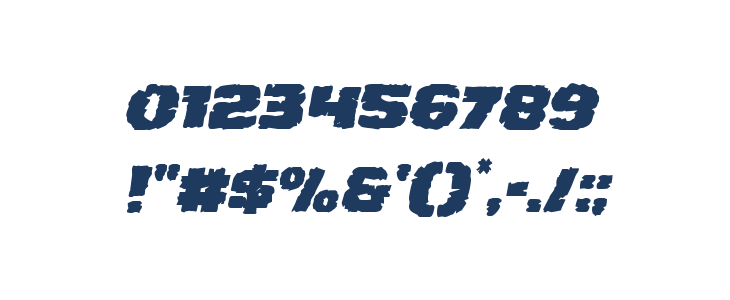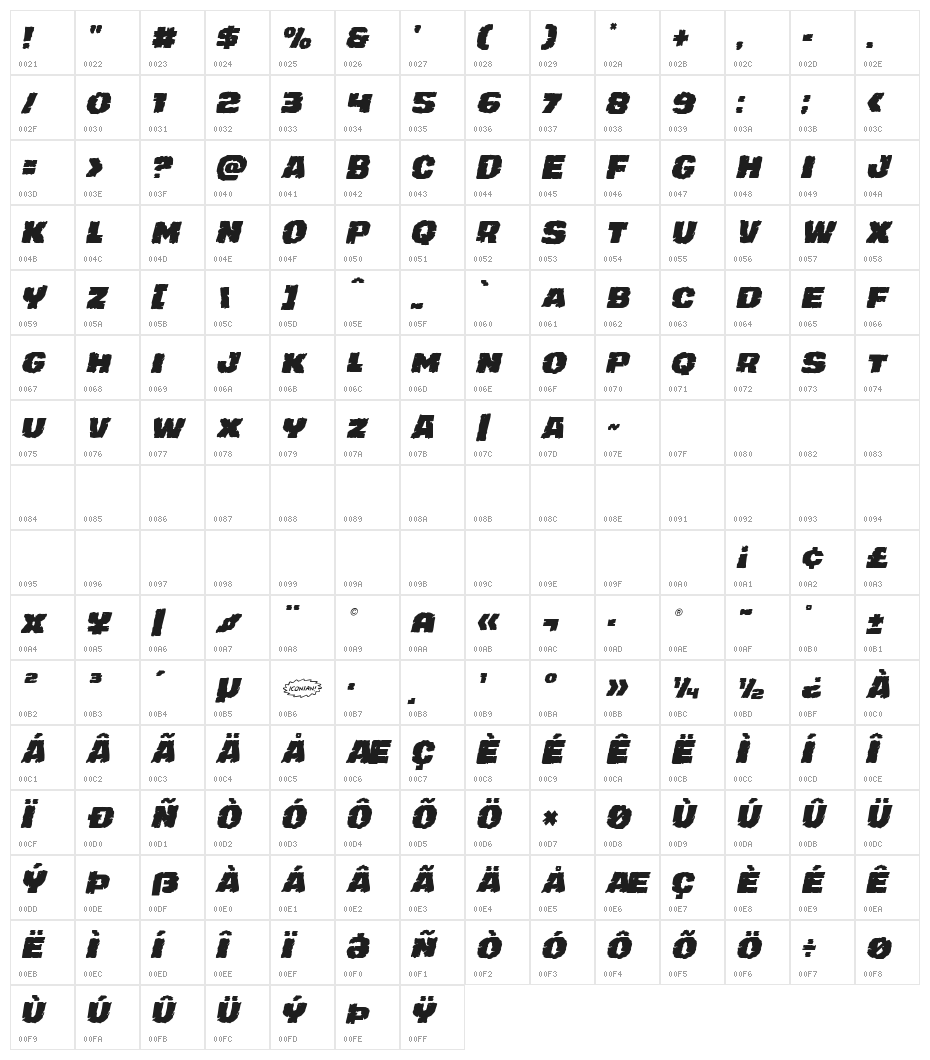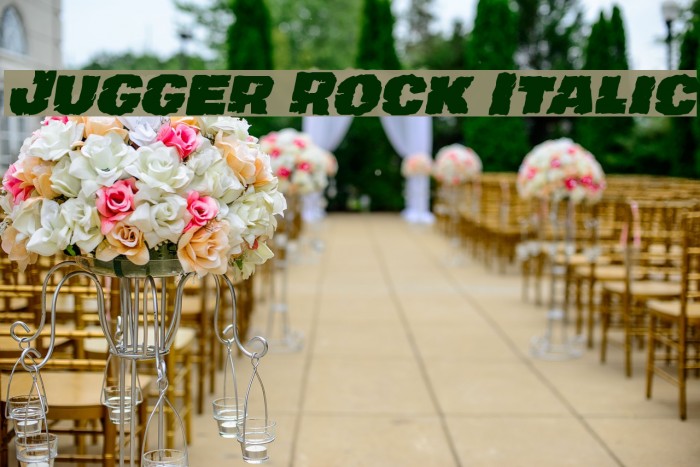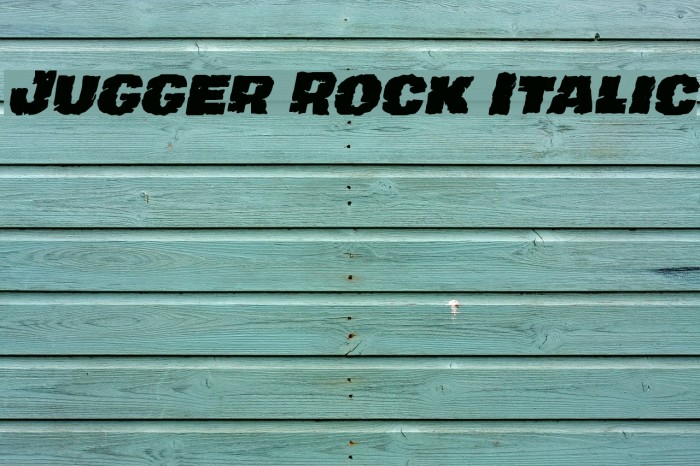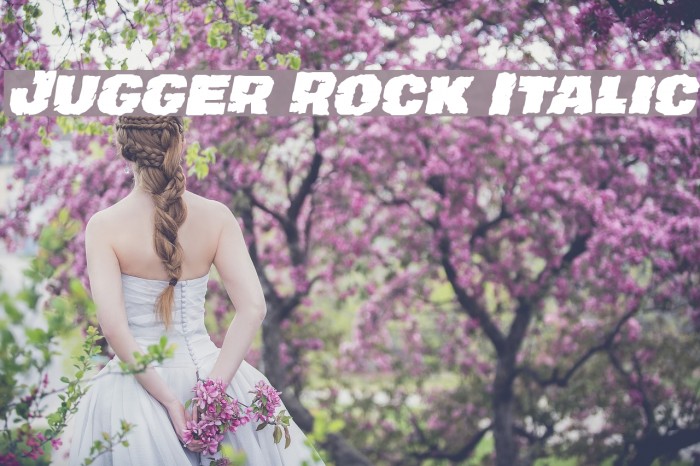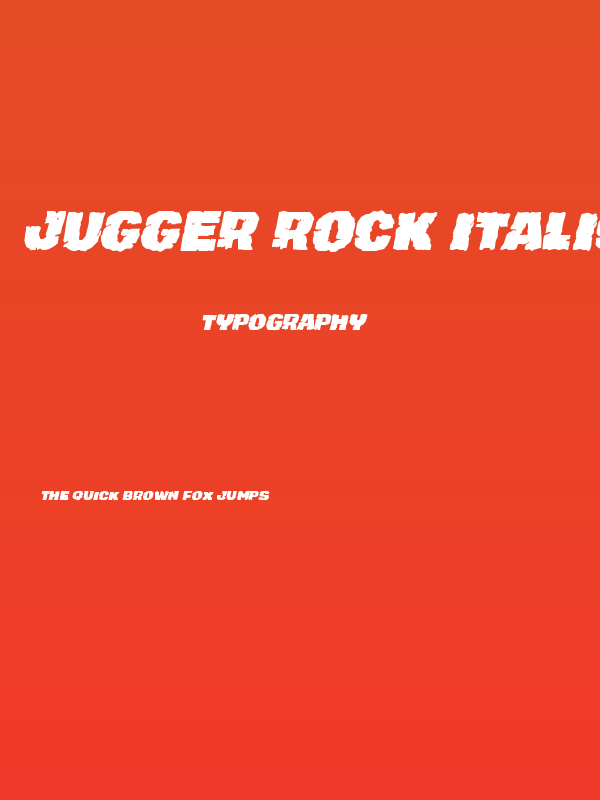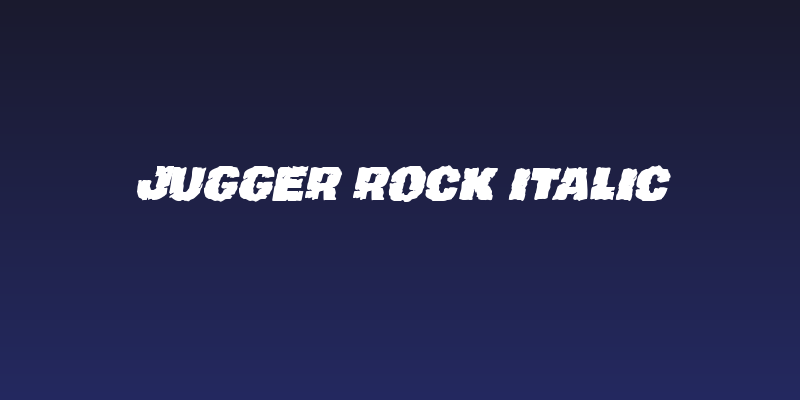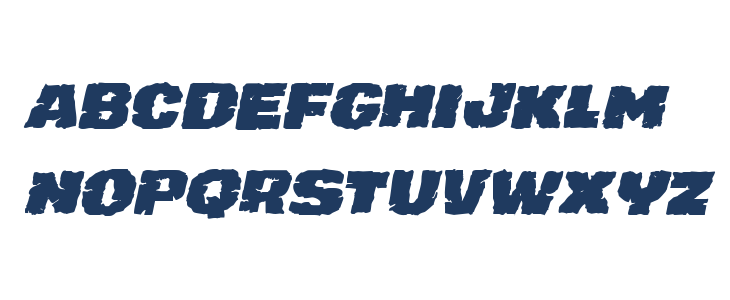
Jugger Rock Italic Font
Jugger Rock Italic Description
This font features a bold and rugged design with a distressed, textured appearance that gives it a dynamic and energetic feel. The characters are italicized, adding a sense of motion and urgency. The uppercase and lowercase letters maintain a consistent style, with sharp edges and irregular contours that suggest a hand-crafted or industrial aesthetic. The numerals and special characters follow the same design principles, ensuring uniformity across all glyphs. This font's unique style makes it stand out, perfect for projects that require a bold statement.
Proposed ProjectsIdeal for posters, album covers, sports branding, and any design needing a bold, impactful look.